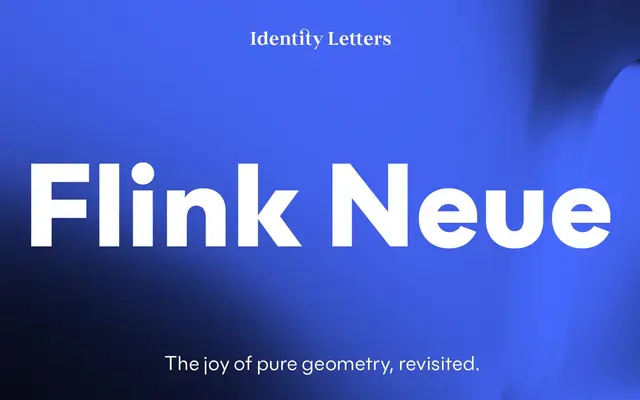
Flink Neue
A geometric sans-serif in 54 styles across three subfamilies, spanning standard, Text and Bauhaus cuts with nine weights each.
Identity Letters' take on the geometric sans tradition, the family draws on 1920s Bauhaus-era sources and their later descendants. It runs across three subfamilies: a standard cut, a Text optical size optimised for smaller settings, and a Bauhaus variant with alternate letterforms. Each subfamily covers nine weights from Thin to Black with matching italics, and the package includes small capitals, oldstyle figures, circled and squared figure sets, and a broad range of OpenType alternates.
Flink Neue is explicitly positioned within the geometric sans-serif tradition, drawing on the Bauhaus-era genre and its later developments. The family includes a dedicated Bauhaus subfamily alongside standard and Text optical variants.